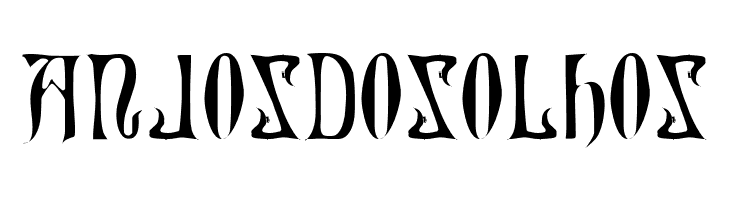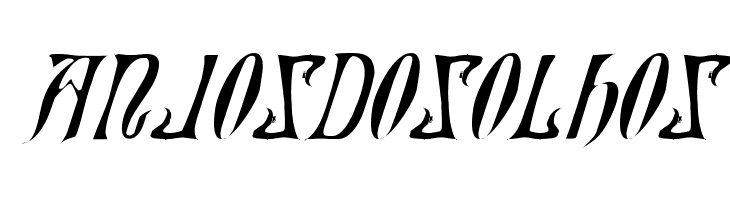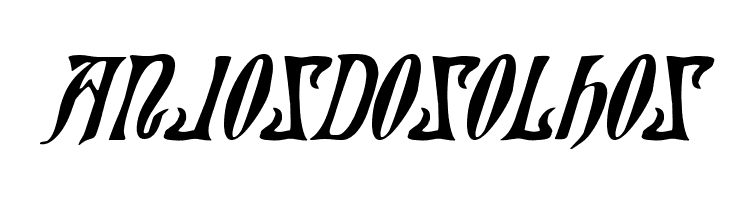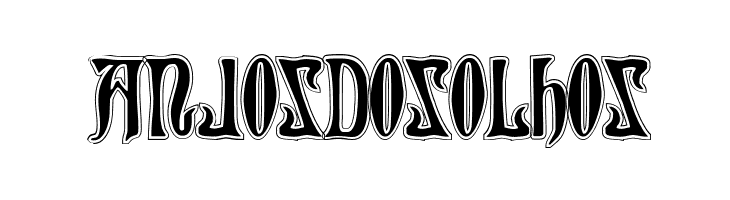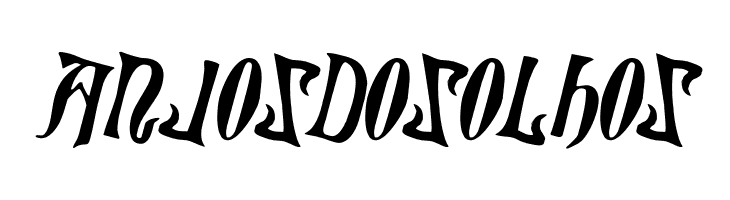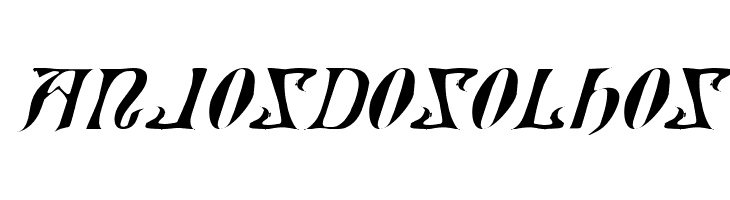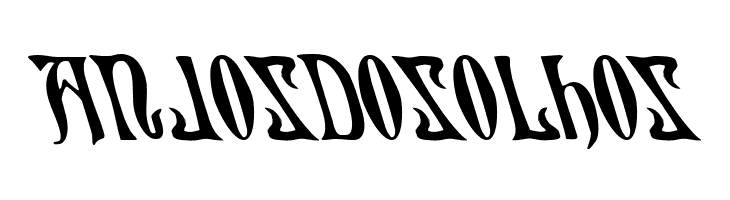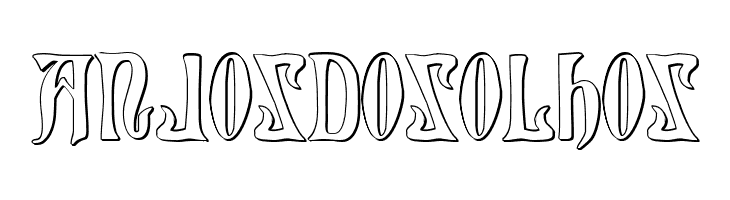
Fox on the Run Expanded Font
- Font: Fox on the Run Expanded
A decorative font with sharp, angular edges and a gothic flair.
A dynamic, italicized font with high contrast and sharp serifs.
A bold, italic font with sharp serifs and a dynamic, modern style.
A bold, decorative font with a vintage flair and outlined characters.
A bold, angular font with a counter-rotated design and dynamic style.
An elegant, expanded, and italicized font with a light weight and modern style.
A bold, left-leaning font with sharp, angular edges and high contrast.
A bold, 3D outline font with a dynamic and striking appearance.